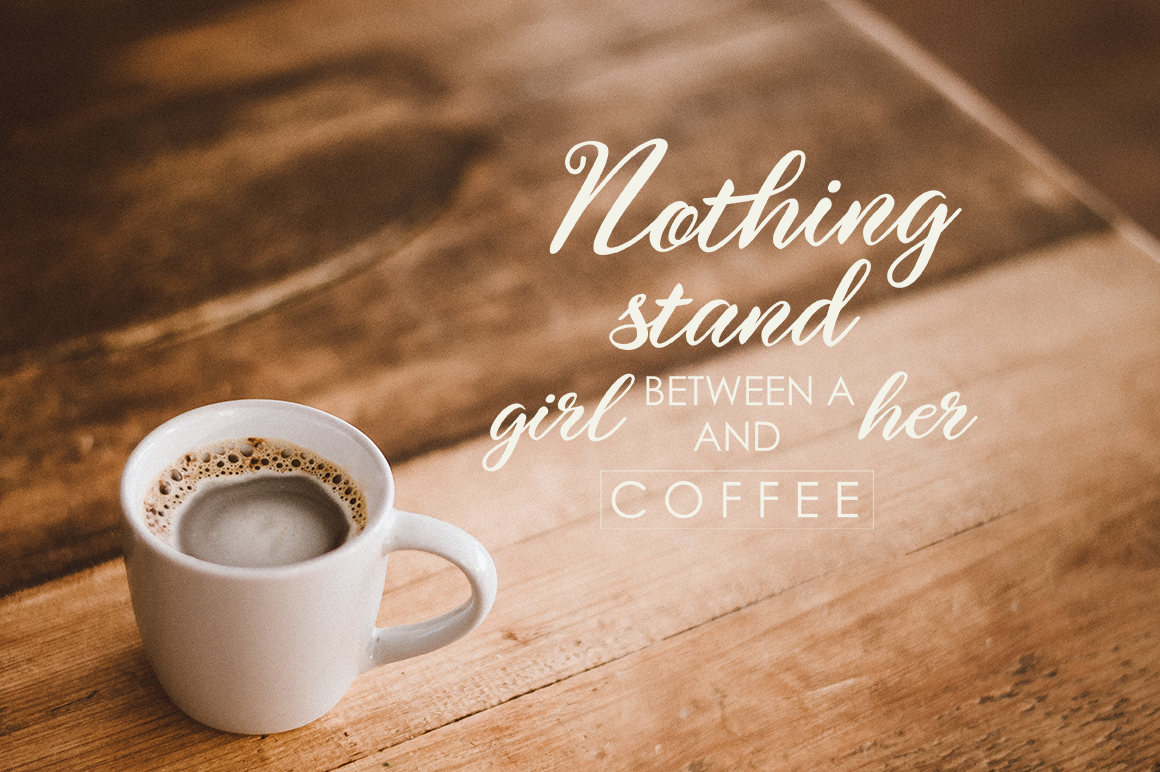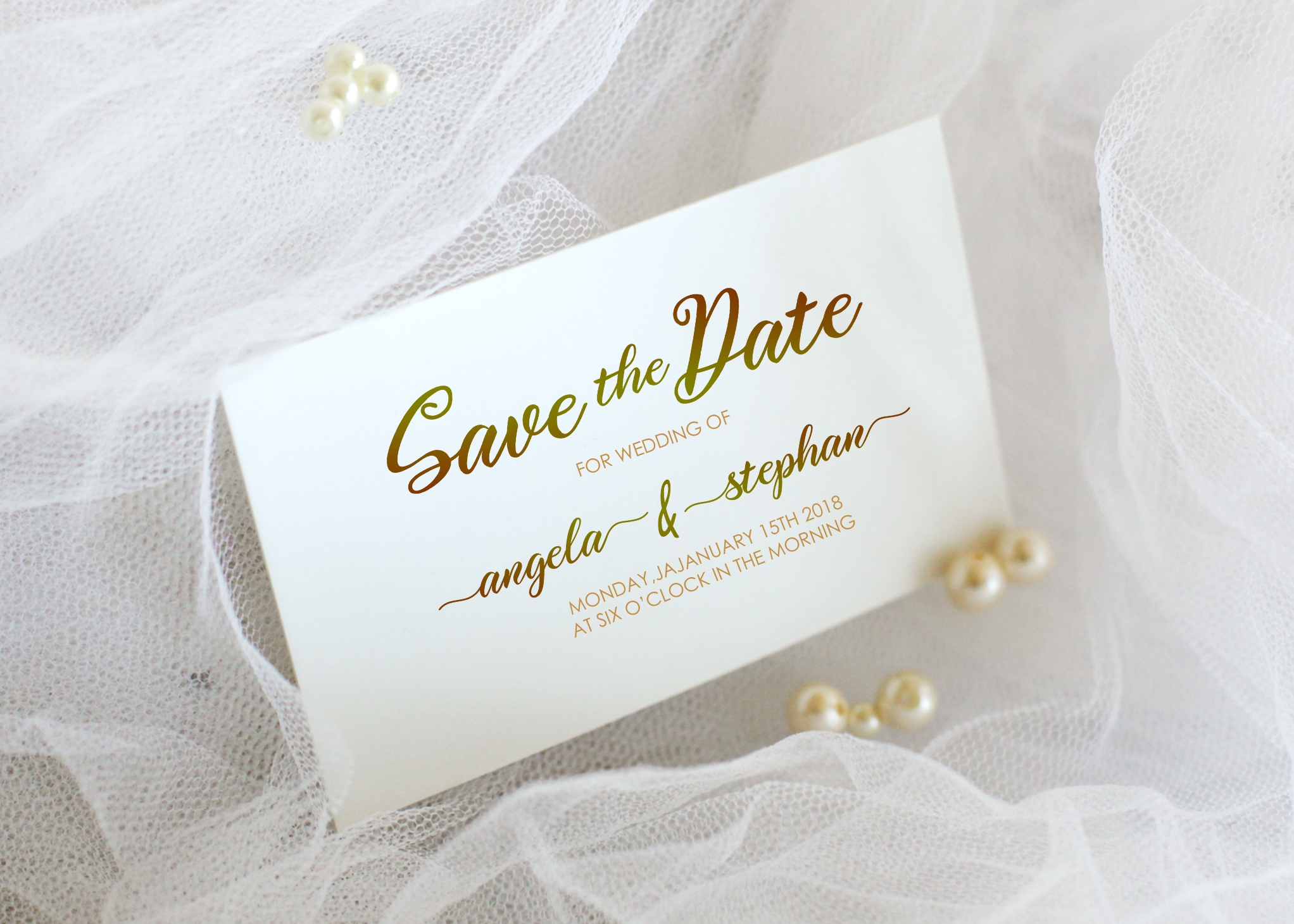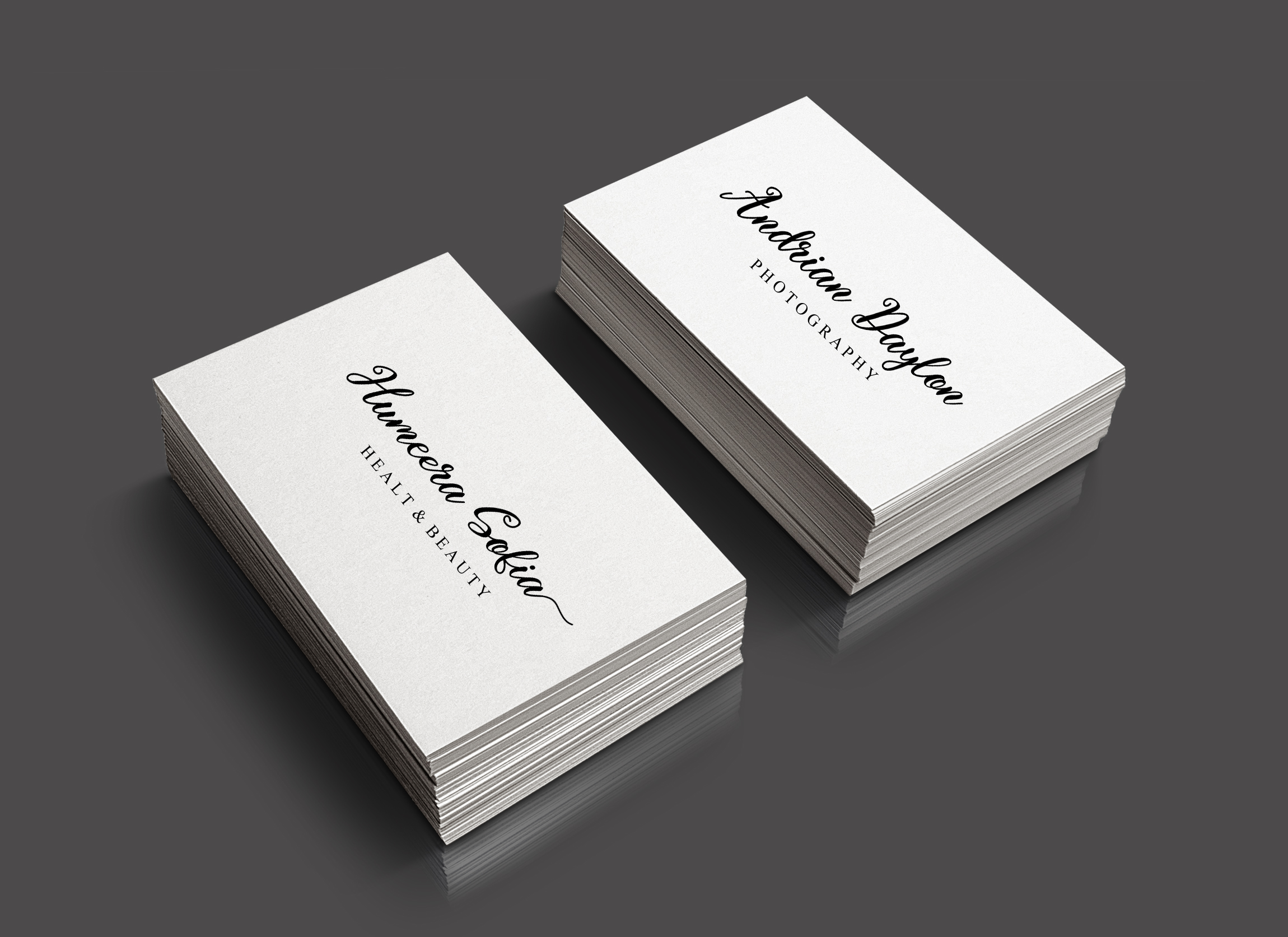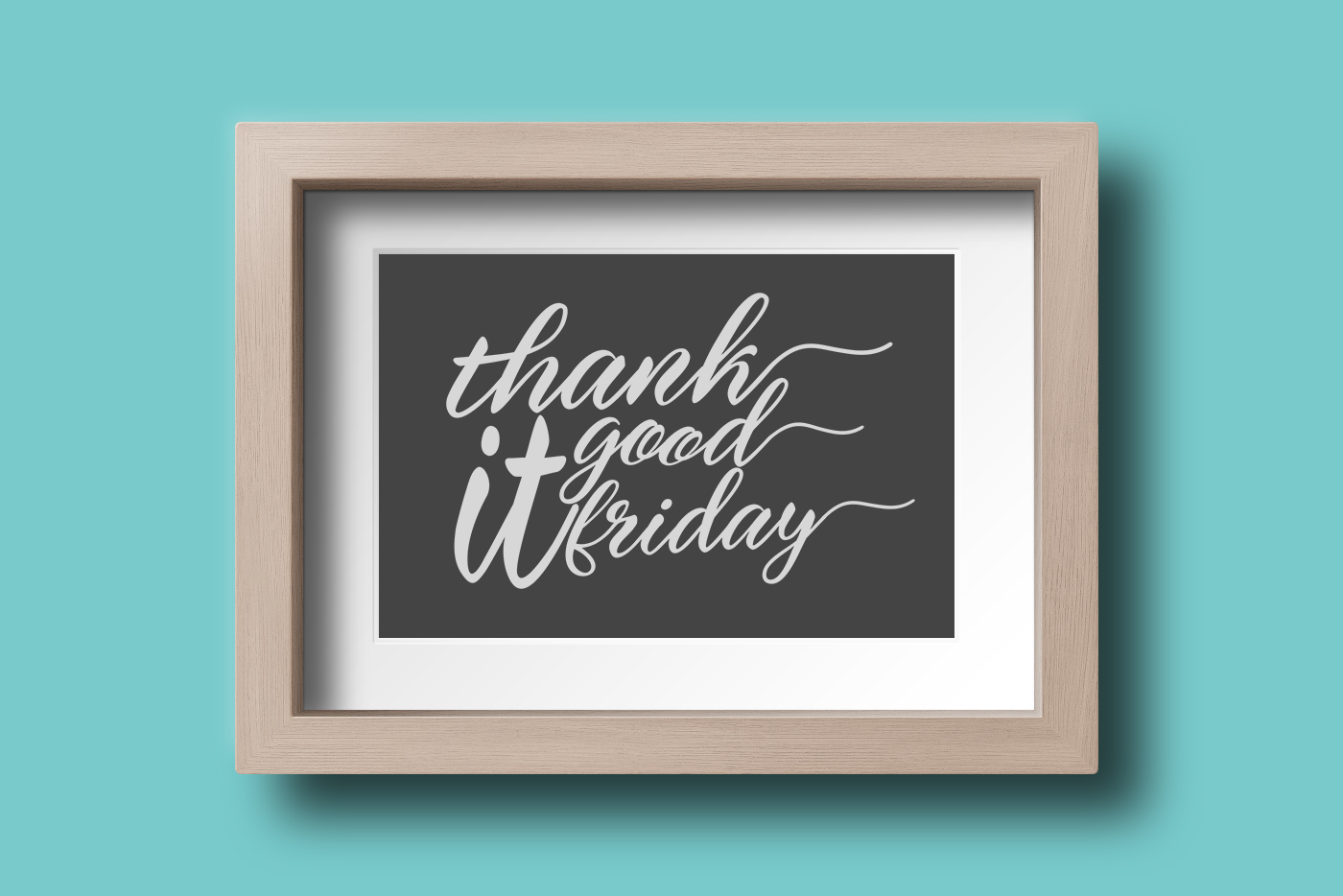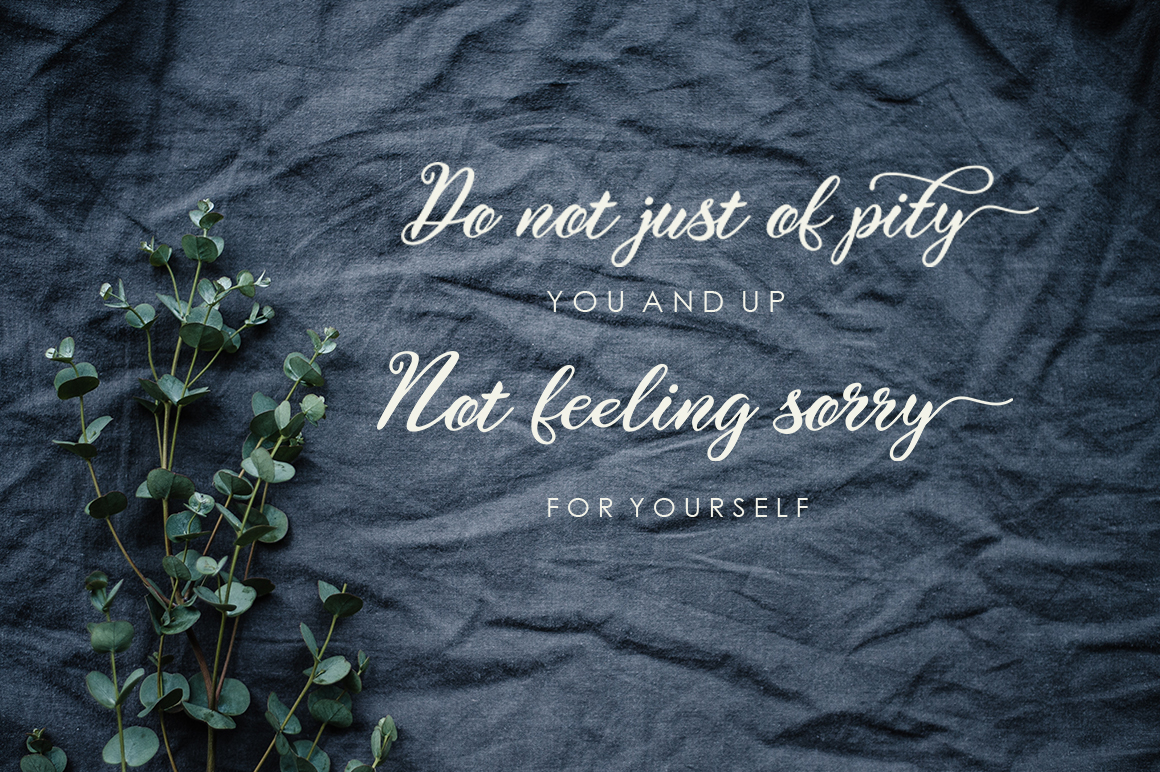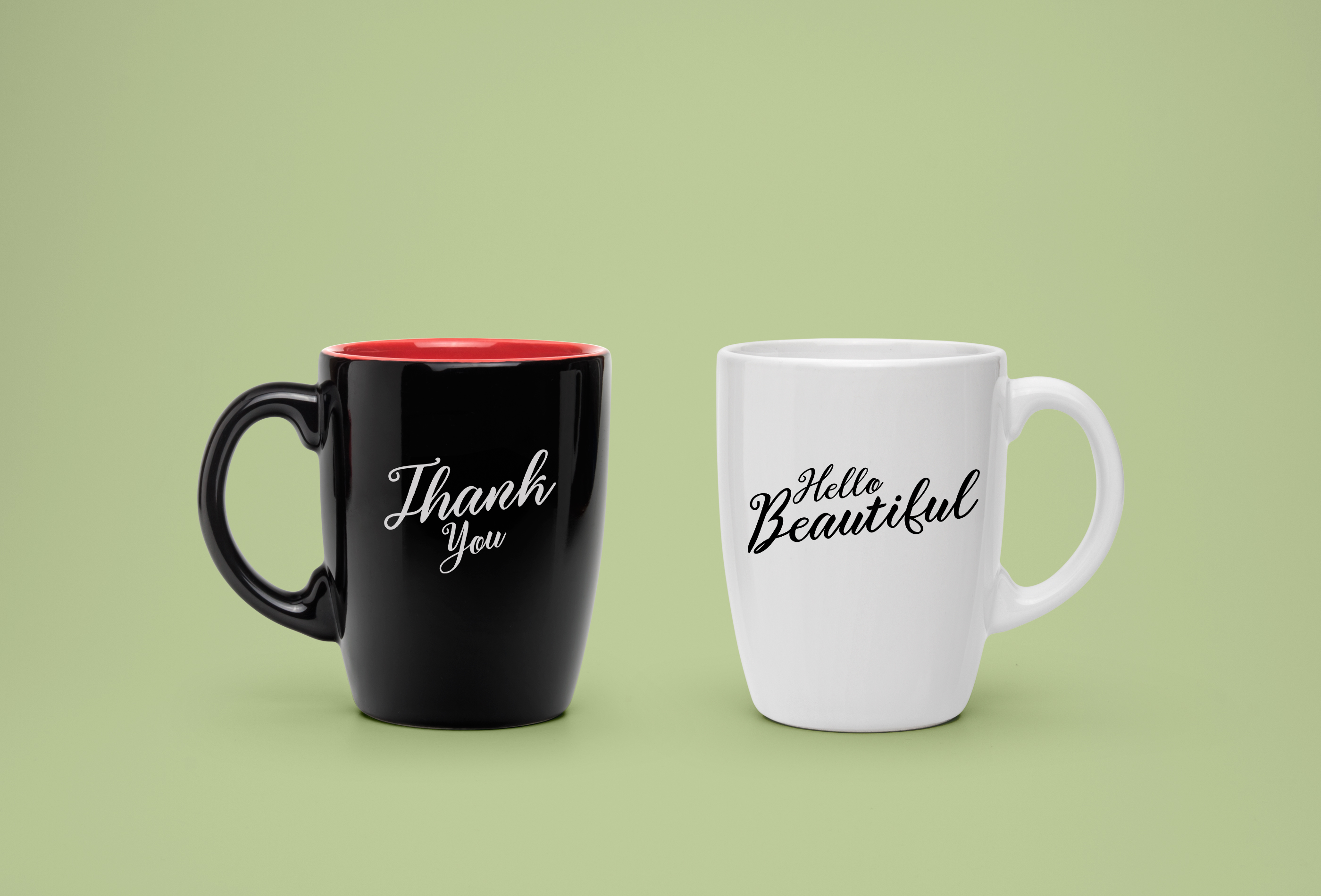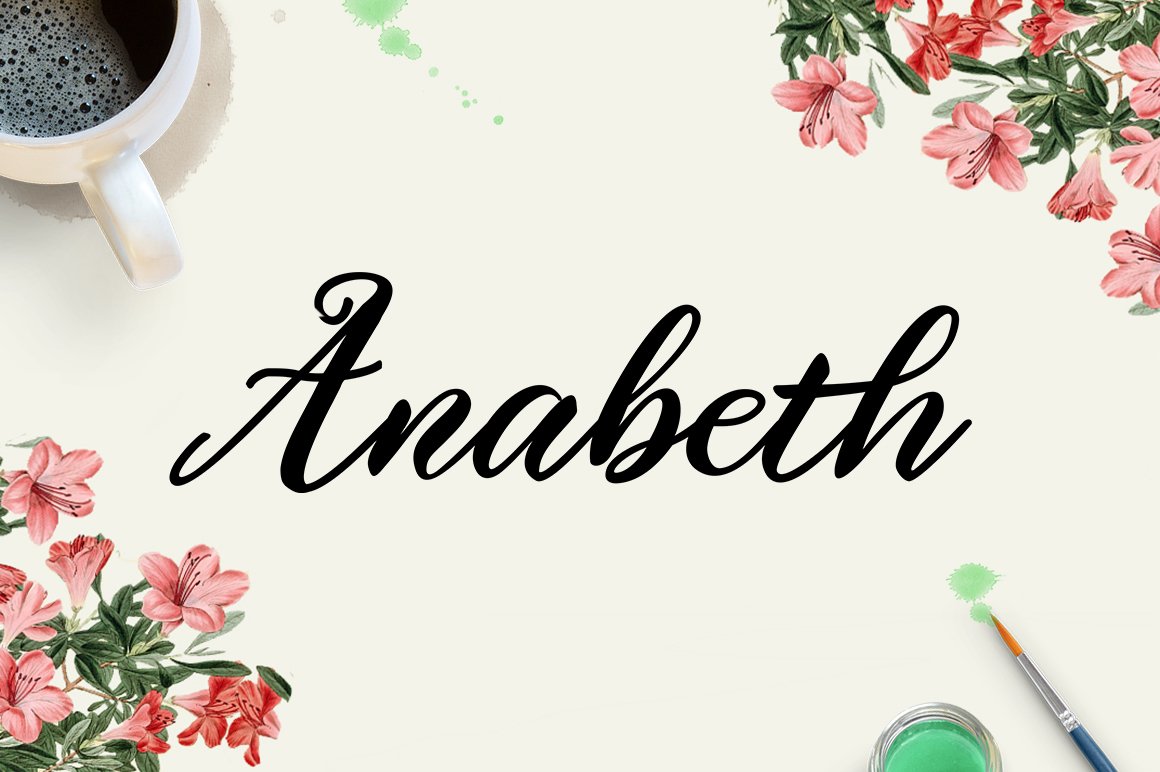
The Perfect Script: Unleashing Your Creativity with Anabeth Font
Have you ever sat down with a blank page, pen in hand, and felt the thrill of creating something entirely new? That moment of pure inspiration is what drives designers to push the boundaries of their craft, and it’s exactly what the Anabeth Font is designed to capture. This elegant script font is the result of careful handwritten precision, crafted to bring a touch of sophistication to your designs.
With its extensive range of ligatures and alternates, the Anabeth Font offers endless possibilities for creative expression. Whether you’re working on a high-end branding project or a personal art piece, this font is sure to elevate your work and make it truly unforgettable. As a valuable tool for designers, the Anabeth Font is a must-have for anyone looking to add a unique and captivating touch to their designs.
- Unique Characteristics: This font features a unique blend of modern and vintage elements, with intricate details and subtle textures that give it a distinctive look.
- Font Metrics: The font’s x-height is 0.5, and its cap height is 1.1, providing a balanced and harmonious visual experience.
Designer Review: Anabeth Font
Overall, I found the Anabeth Font to be a solid, yet not particularly groundbreaking choice for typography. Here are my thoughts on what works well and what could be improved.
- Friendly, approachable feel: Anabeth Font has a warm and inviting personality that makes it perfect for use in body text, particularly in informal or creative contexts.
- Legibility: The font is well-designed and easy to read, even at smaller font sizes.
- Stylistic versatility: Anabeth Font comes in a range of weights and styles, allowing for a good degree of customization.
- Lack of sophistication: While Anabeth Font is pleasant to look at, it may not be the best choice for more formal or professional contexts, where a more refined or elegant font may be preferred.
- Limited uniqueness: The font’s design, while friendly and approachable, may not stand out from more generic or widely used fonts.
Overall, Anabeth Font is a dependable choice for typography, but it may not be the best option for designers looking to make a bold statement or push the boundaries of typography.
Tip: Use Anabeth Font for titles and headings to add a touch of elegance to your designs.
Tip: Use Anabeth Font for typography-heavy designs, such as posters or brochures.
Tip: Use Anabeth Font for presentations and documents that require a professional look.
Anabeth Font is ideal for:
- Posters and advertisements
Remember to use Anabeth Font consistently throughout your design to create a cohesive look.
Playfair Display is an elegant, luxurious serif font ideal for titles, headings, and any content that demands sophistication. It’s perfect for use in high-end branding, magazines, and websites with a classic touch.
Playfair Display compares to Anabeth Font in its elegant and refined nature, but it’s more suitable for formal and luxury branding. Anabeth Font has a softer and more approachable feel, while Playfair Display exudes grandeur and opulence.
Great Vibes is a modern, elegant script font ideal for titles, headings, and any content that demands a touch of sophistication and personality. It’s perfect for use in branding, packaging, and websites with a trendy and youthful vibe.
Great Vibes compares to Anabeth Font in its elegant and refined nature, but it’s more suitable for modern and trendy branding. Anabeth Font has a softer and more classic feel, while Great Vibes has a more dynamic and expressive feel.